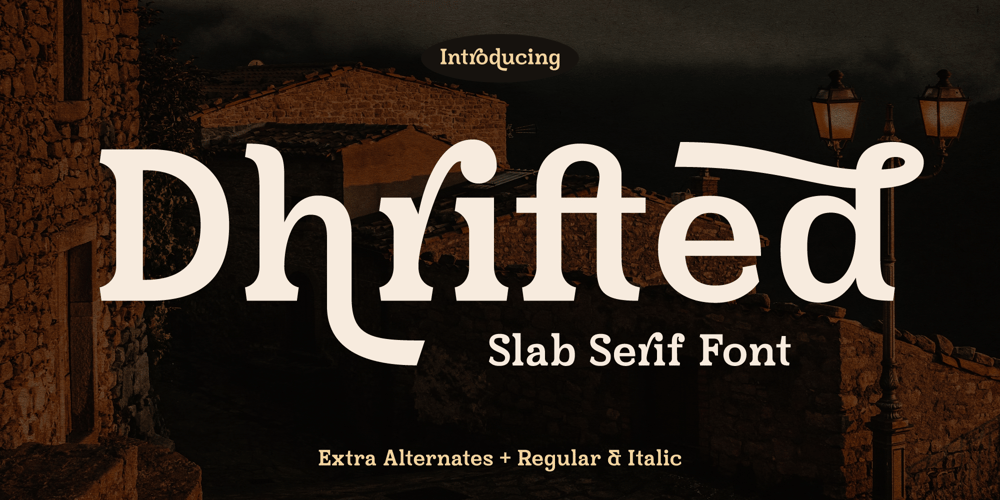
Dhrifted Font Family was designed by Heru Utama Putra and published by Letterena Studios. Dhrifted contains 2 styles and family package options. Dhrifted is a serif modern and classic typeface that his own unique style & modern look.This typeface is perfect for an elegant & luxury logo, book or movie title design, fashion brand, magazine, clothes, lettering, quotes, and so much more.